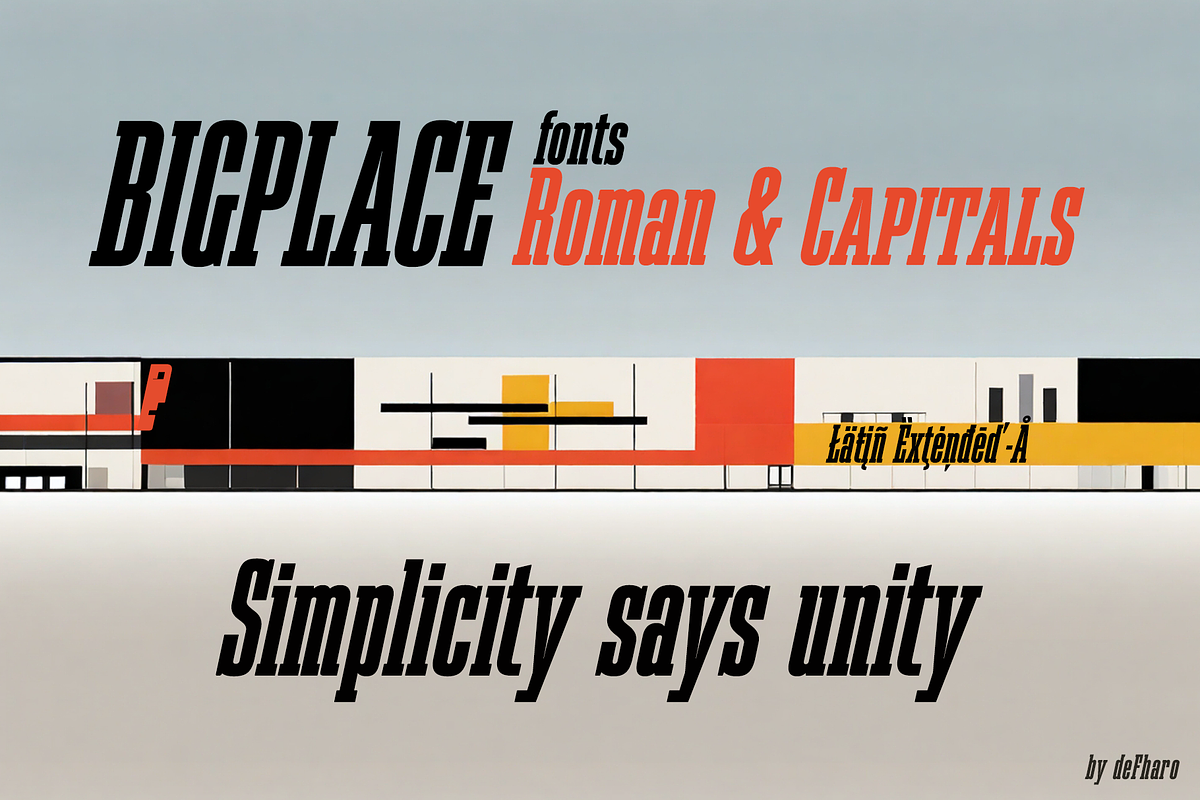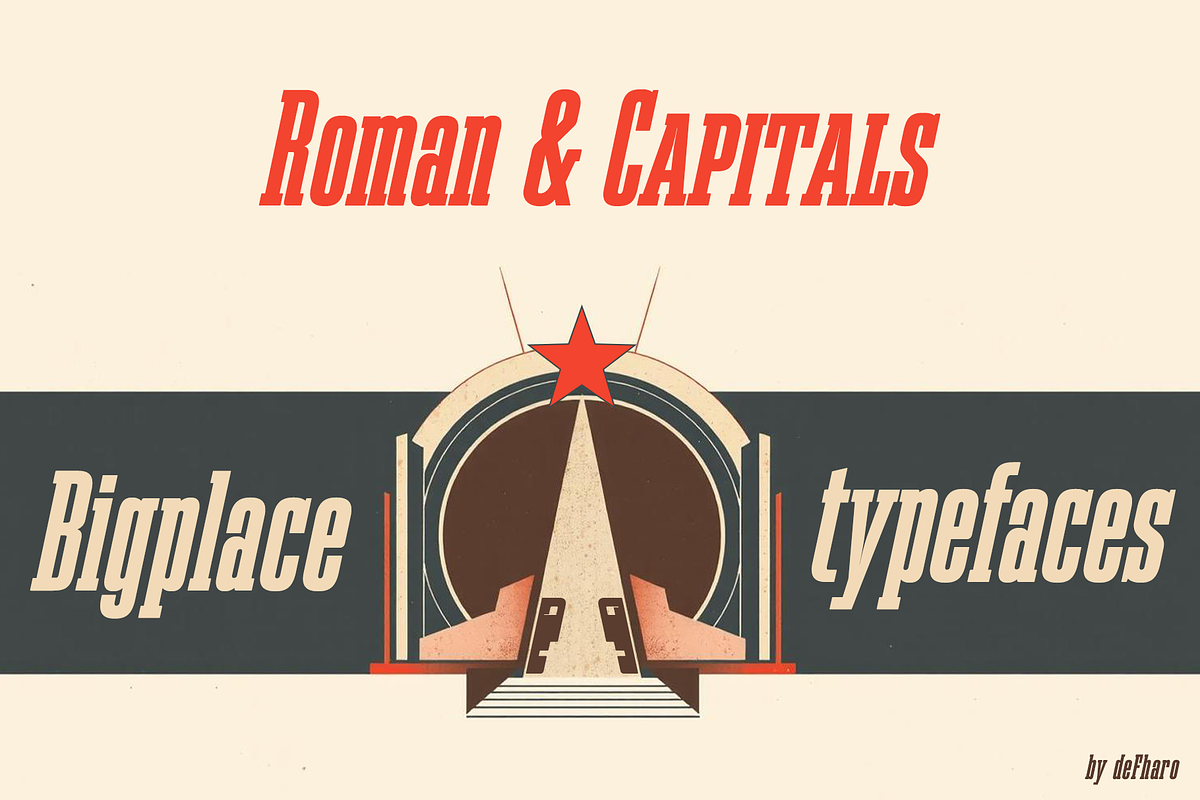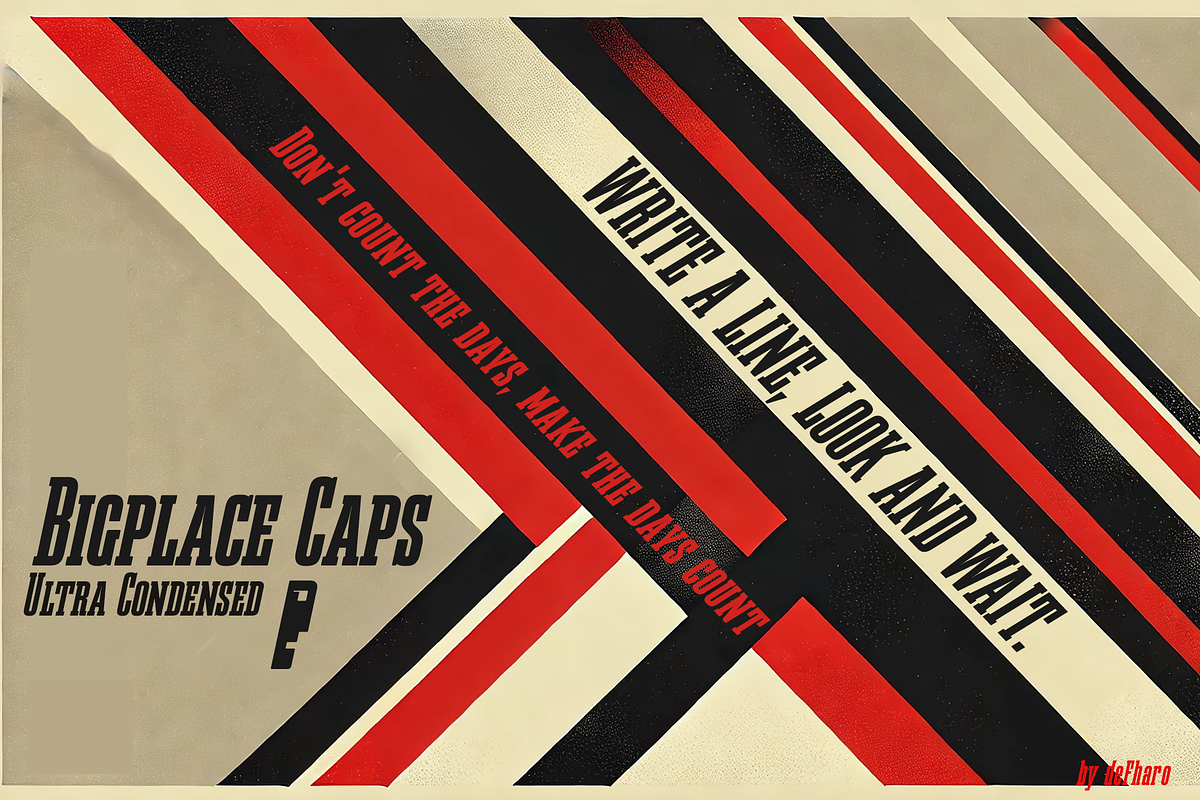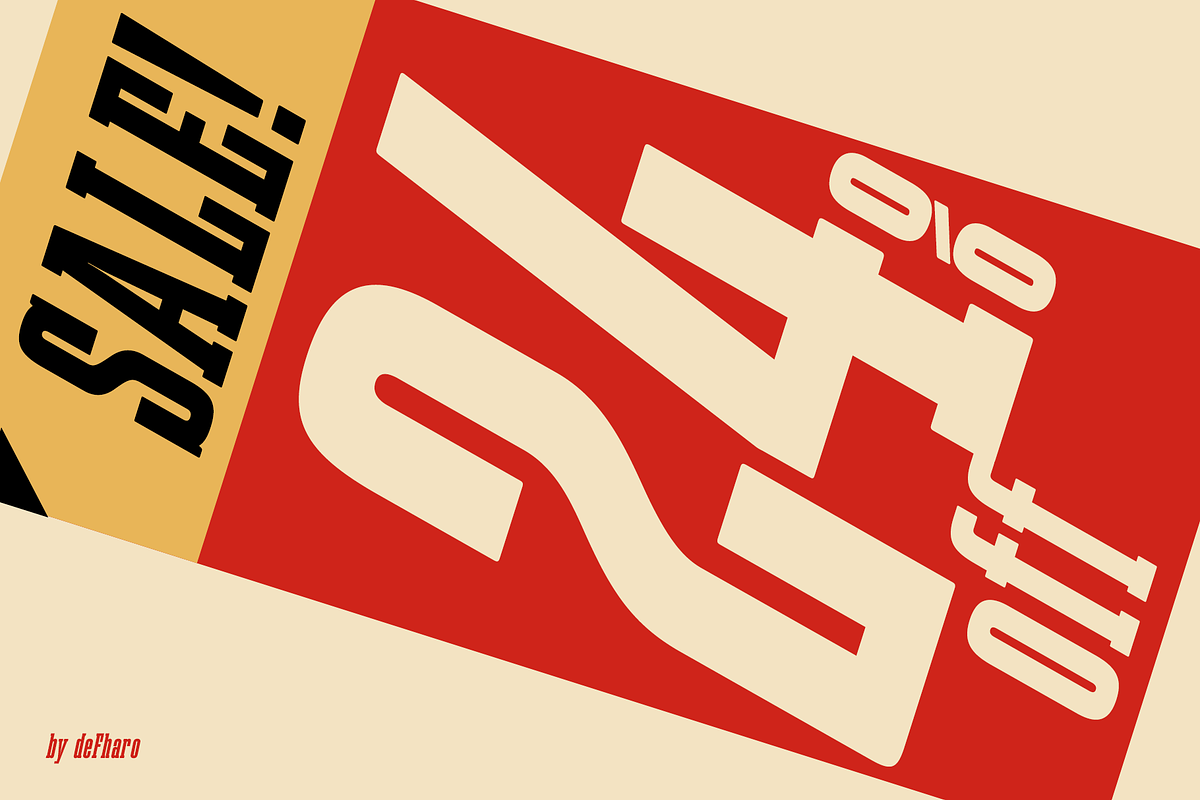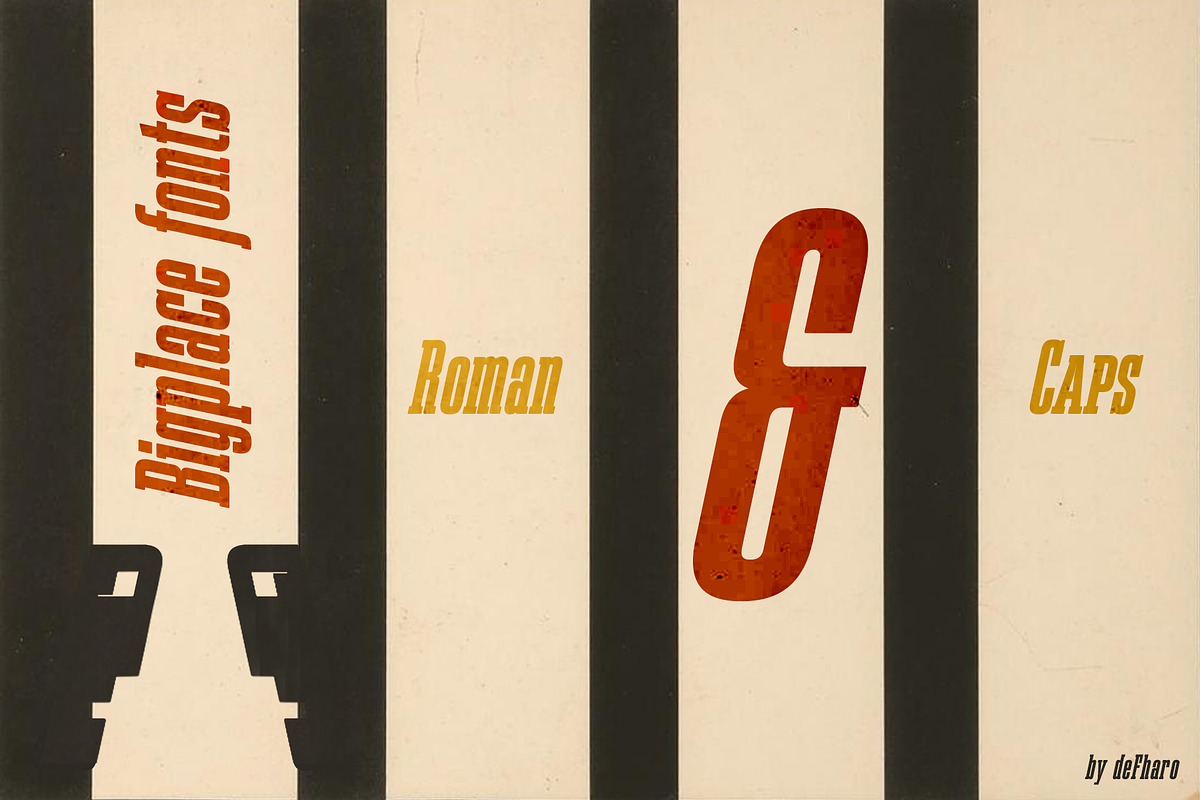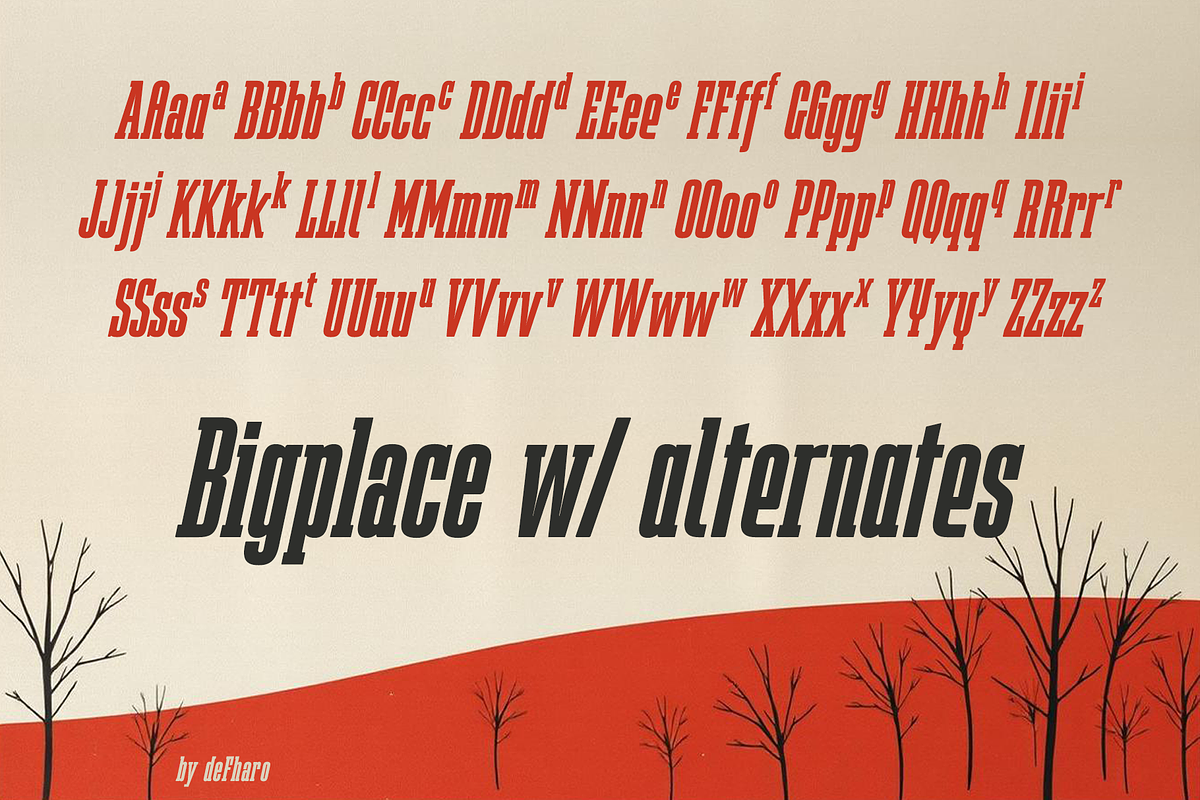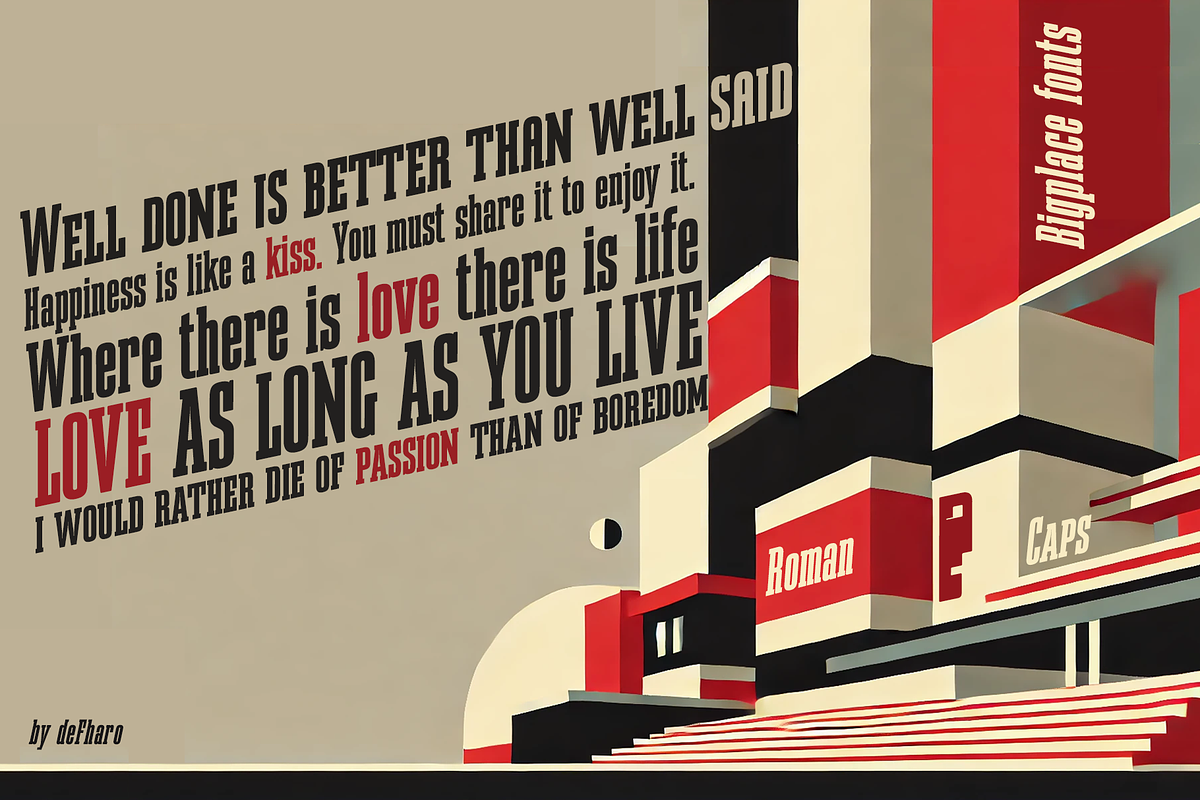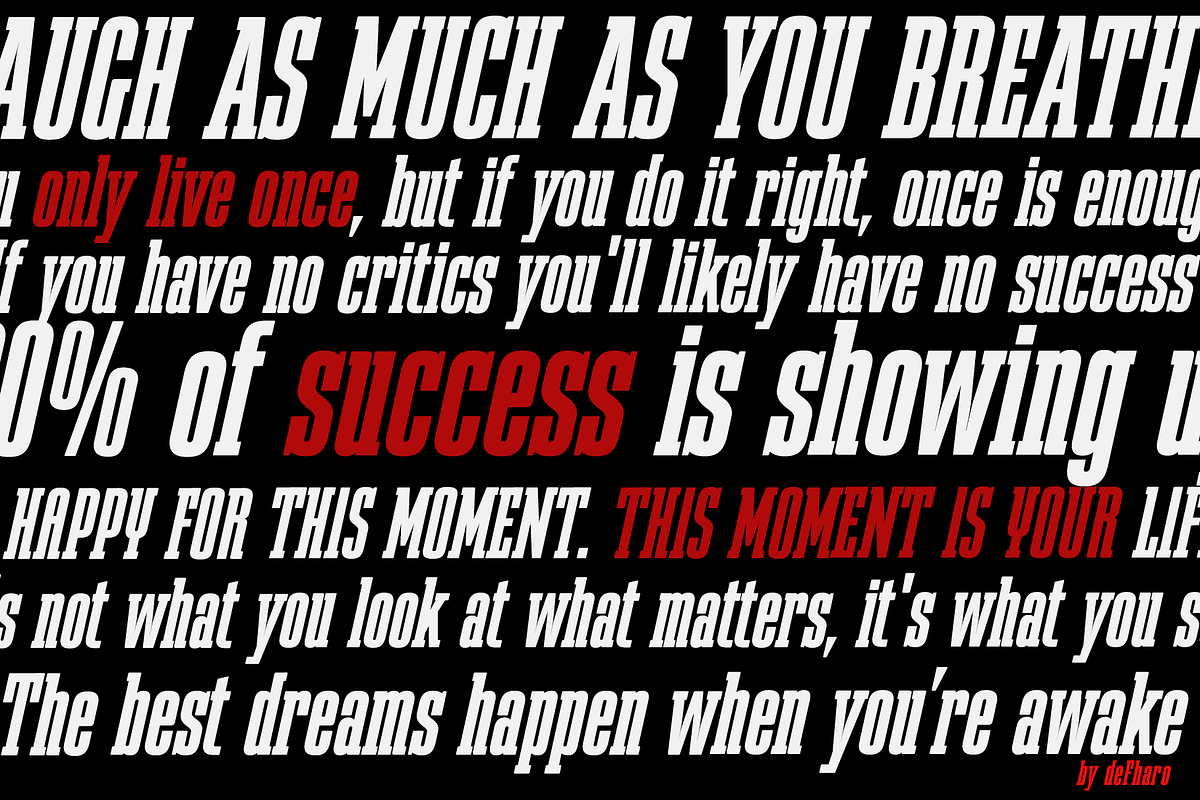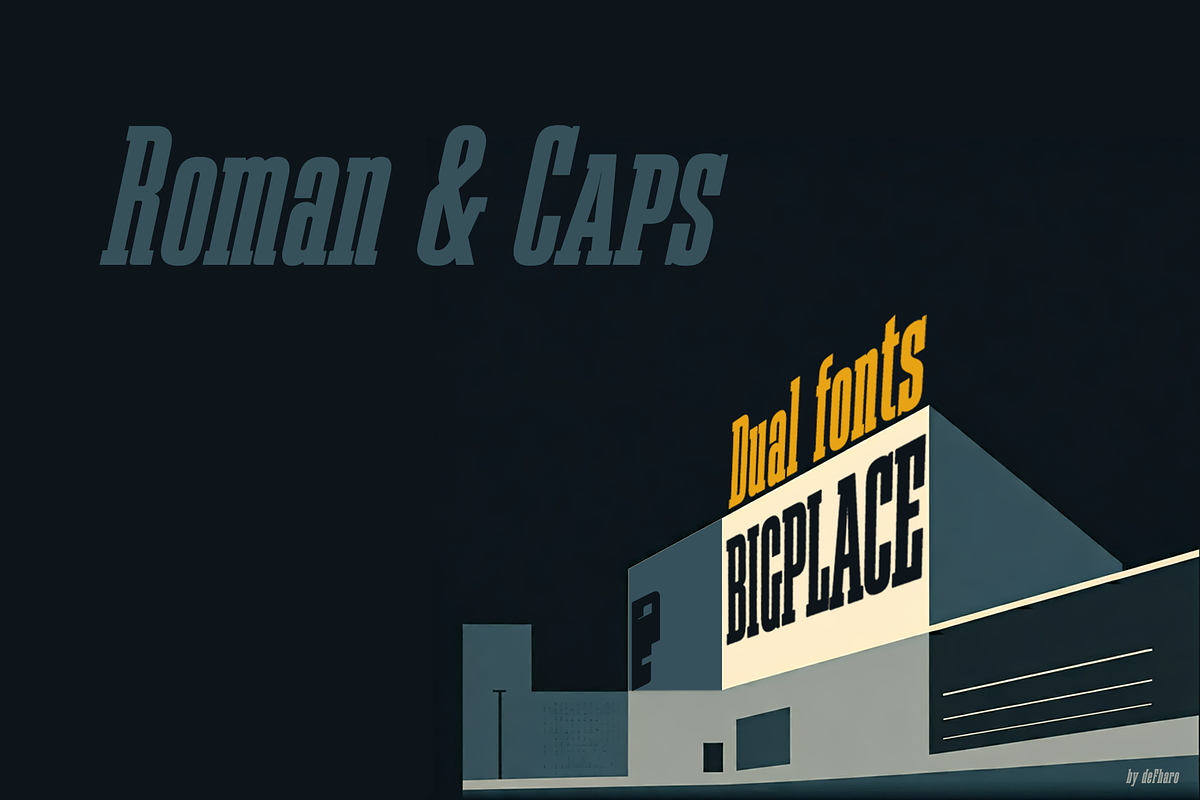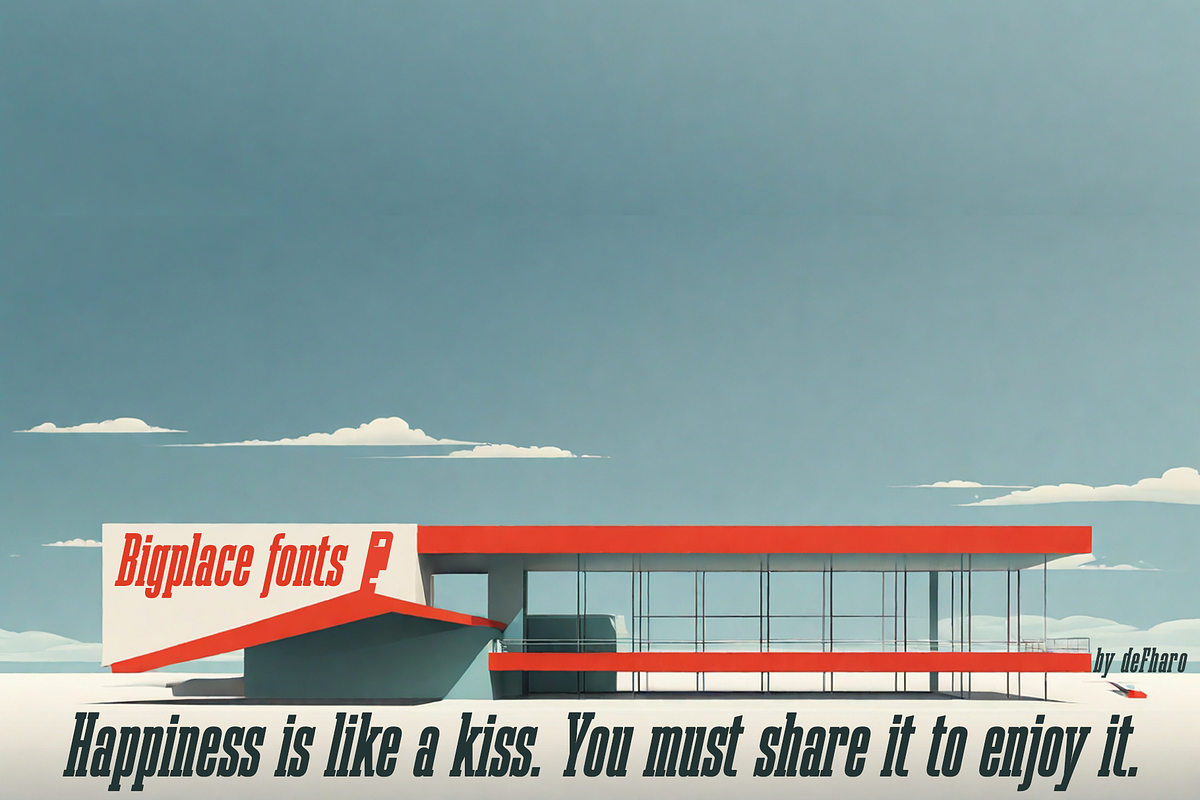
Bigplace, Roman & Caps
Bigplace, a typeface with an ultra-condensed structure and a bold Extra Bold style! Designed to stand out, Bigplace combines the strength and presence of a Slab Serif with the energy of its oblique stroke, giving it an unmistakable dynamism.
Inspired by two of the most influential graphic movements of the 20th century, the Bauhaus and Soviet Constructivism, Bigplace draws from the best of graphic design, posters, and editorial design from these avant-gardes, merging their functional character with a touch of contemporary boldness.
ExtCondensed, Extra Bold & Oblique
723 glyphs. Latin Extended-A. 103 alternates.
Bigplace fonts includes the symbol of Bitcoin and currency symbols.
OpenType Features: Additional languages, Petite Caps, All Alternates, Alternate Annotation Forms, Bitcoin, Capital Spacing, Contextual Alternates, Denominators, Discretionary Ligatures, Fractions, Historical Forms, Inferiors, Kerning, Localized Forms, Numbers Small Caps, Numerators, Oldstyle Figures, Ordinals, Scientific Inferiors, Slashed Zero, Small Capitals, Standard Ligatures, Stylistic Set, Subscript, Superior letters, Superiors, Superscript, Titling alternates.